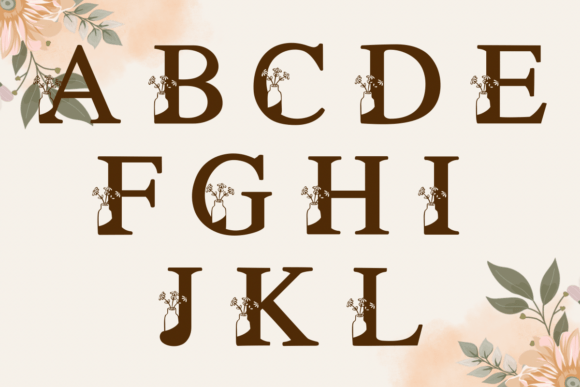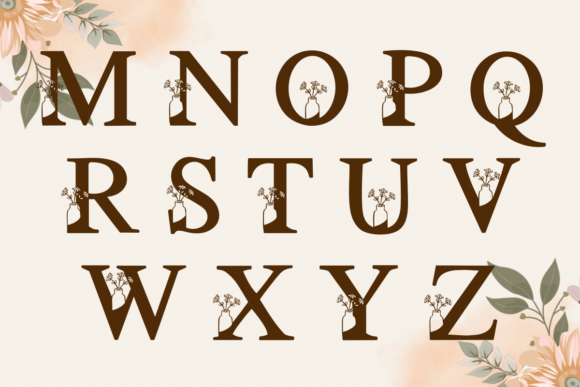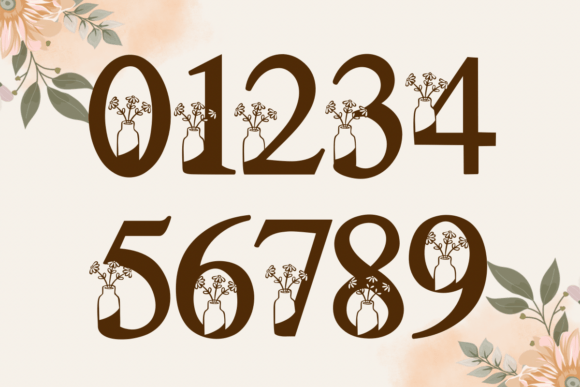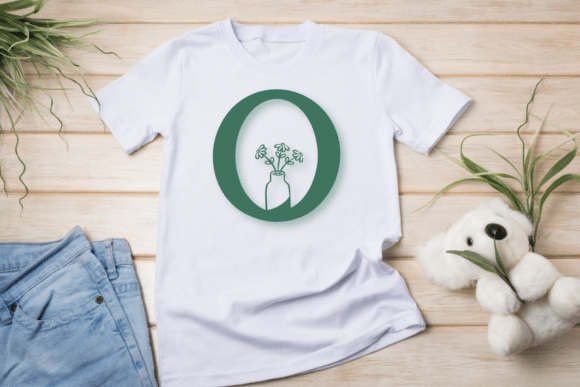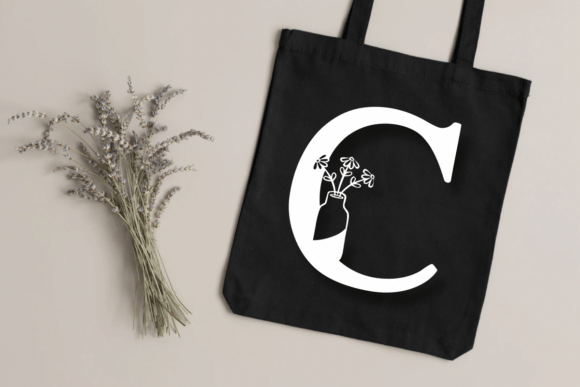
Introduction to Monogram Flower Vase Font Font
Fonts play a crucial role in design, and the Monogram Flower Vase Font font is a typeface that brings both character and versatility to any project. Whether you’re working on a branding project, a website, or a print design, the Monogram Flower Vase Font font offers a unique style that can elevate your work.
Monogram Flower Vase is a beautiful decorative font.
You can use it for taking notes, writing a diary or making greeting cards However you can still use it for other designs such as banners content mugs cards shirts stationery social media posts and more.
Key Features of Monogram Flower Vase Font Font
Why Choose Monogram Flower Vase Font Font?
The Monogram Flower Vase Font font is more than just a typeface – it’s a design tool that helps you communicate your message with style and clarity. Its unique character set and versatile design make it suitable for a wide range of applications, from elegant invitations to bold headlines.
With its carefully crafted letterforms and balanced proportions, the Monogram Flower Vase Font font ensures readability and visual appeal across all mediums.
What makes Monogram Flower Vase Font font special?
The Monogram Flower Vase Font font stands out with its unique design, exceptional readability, and versatility across various design applications.